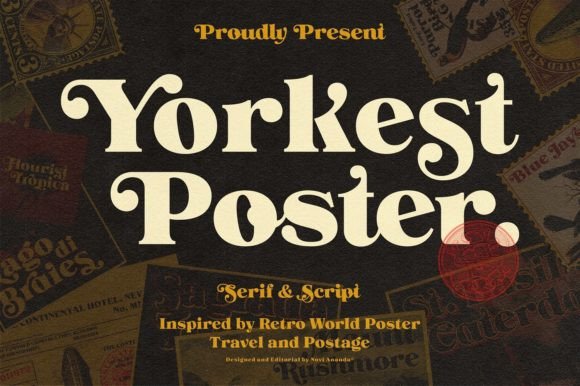
Embark on a visual journey through time with Ns Yorkest Poster, a captivating serif font family inspired by the golden age of vintage travel posters. Its nostalgic charm, reminiscent of the 60s and 70s, will transport you to an era of wanderlust and adventure. With its dual styles—Serif and Script—this font duo is a match made in design heaven, seamlessly complementing each other to create striking visual compositions.
Ns Yorkest Poster's versatile personality shines in a myriad of applications. Its bold and distinctive letterforms make it the perfect choice for logos that demand attention, headlines that command presence, and posters that ignite imagination. It adds an air of sophistication to signage, postcards, and postage stamps, effortlessly elevating your designs to new heights.
But Ns Yorkest Poster's allure extends beyond its visual appeal. With its Stylistic Alternates feature, you can inject a touch of individuality into your creations, ensuring they stand out from the crowd. And for those moments when you need to make a statement, its Swashes step up to the plate, adding a touch of visual drama that leaves a lasting impression.